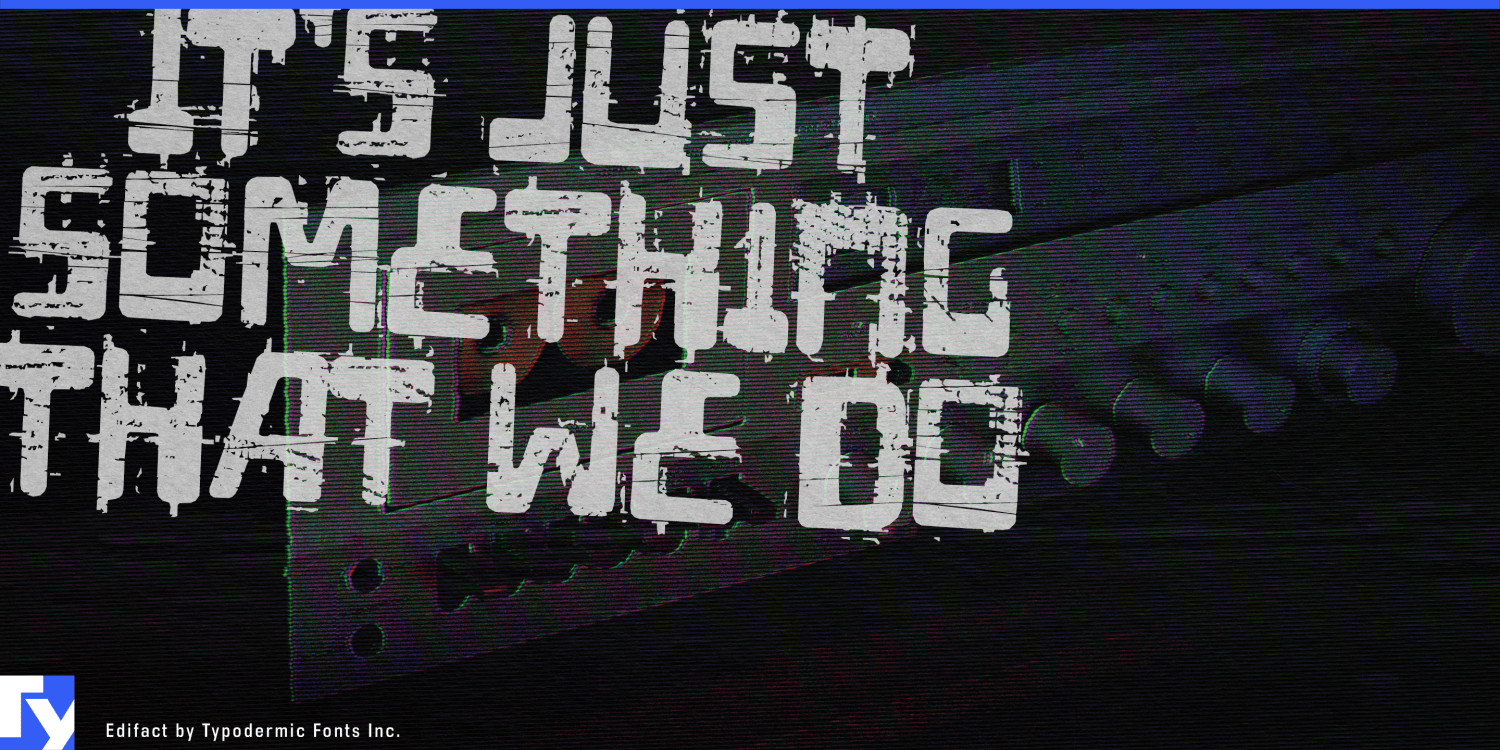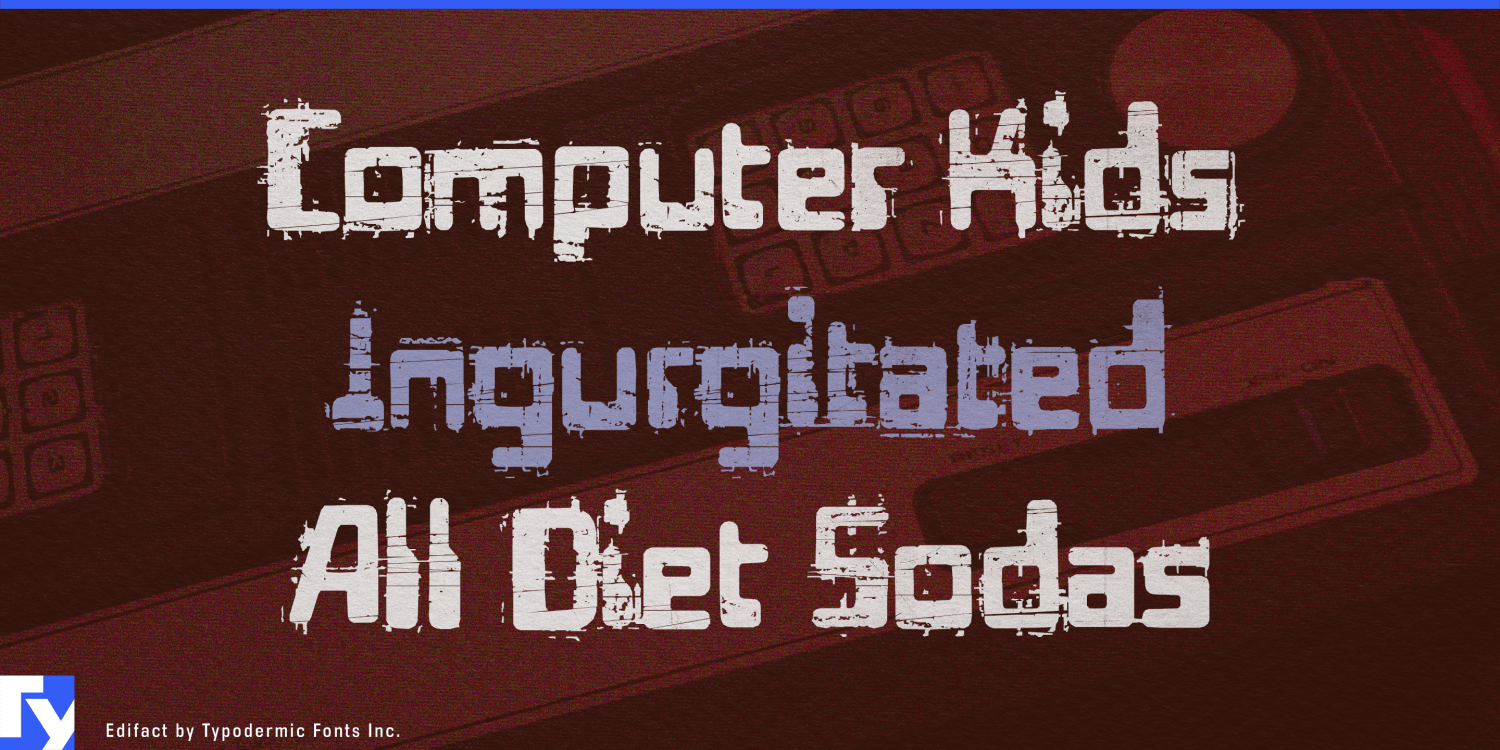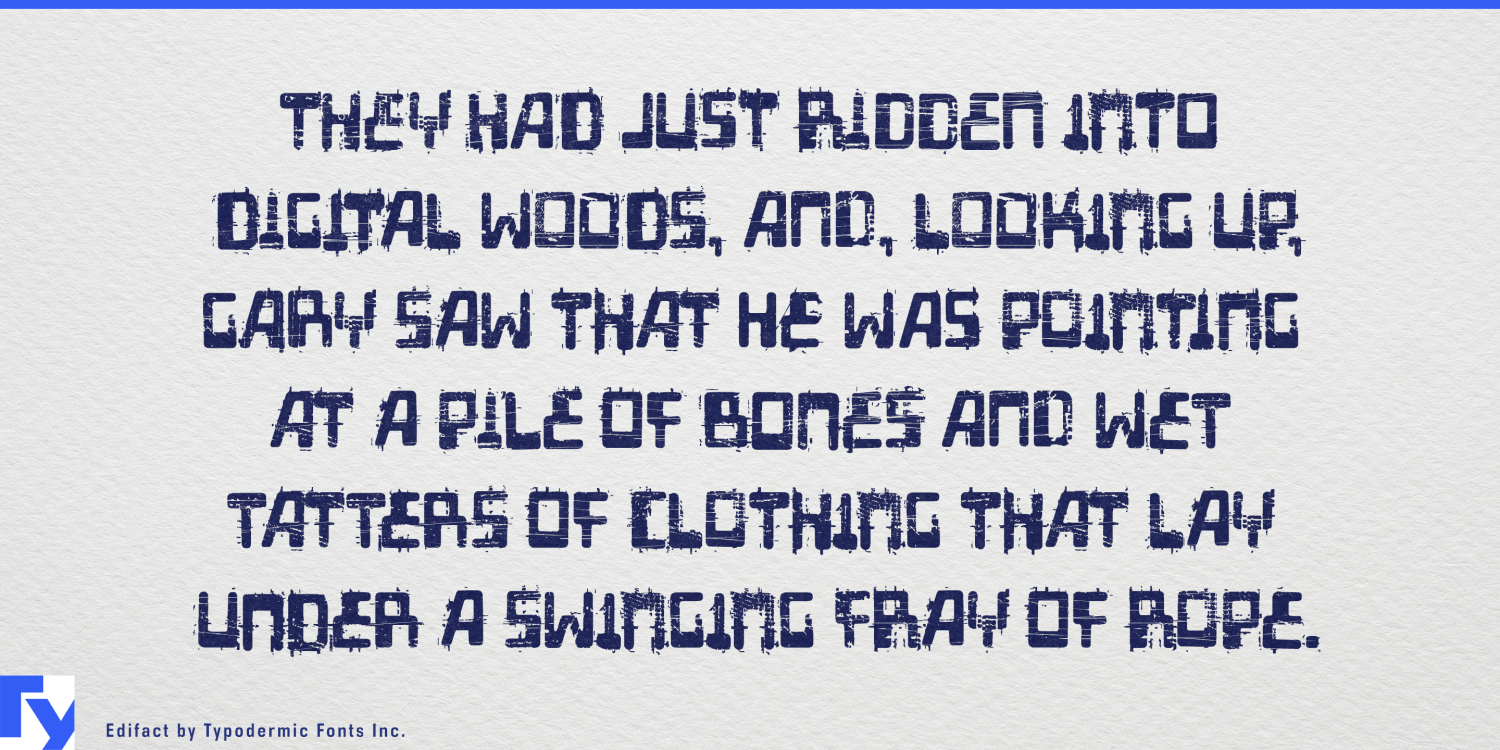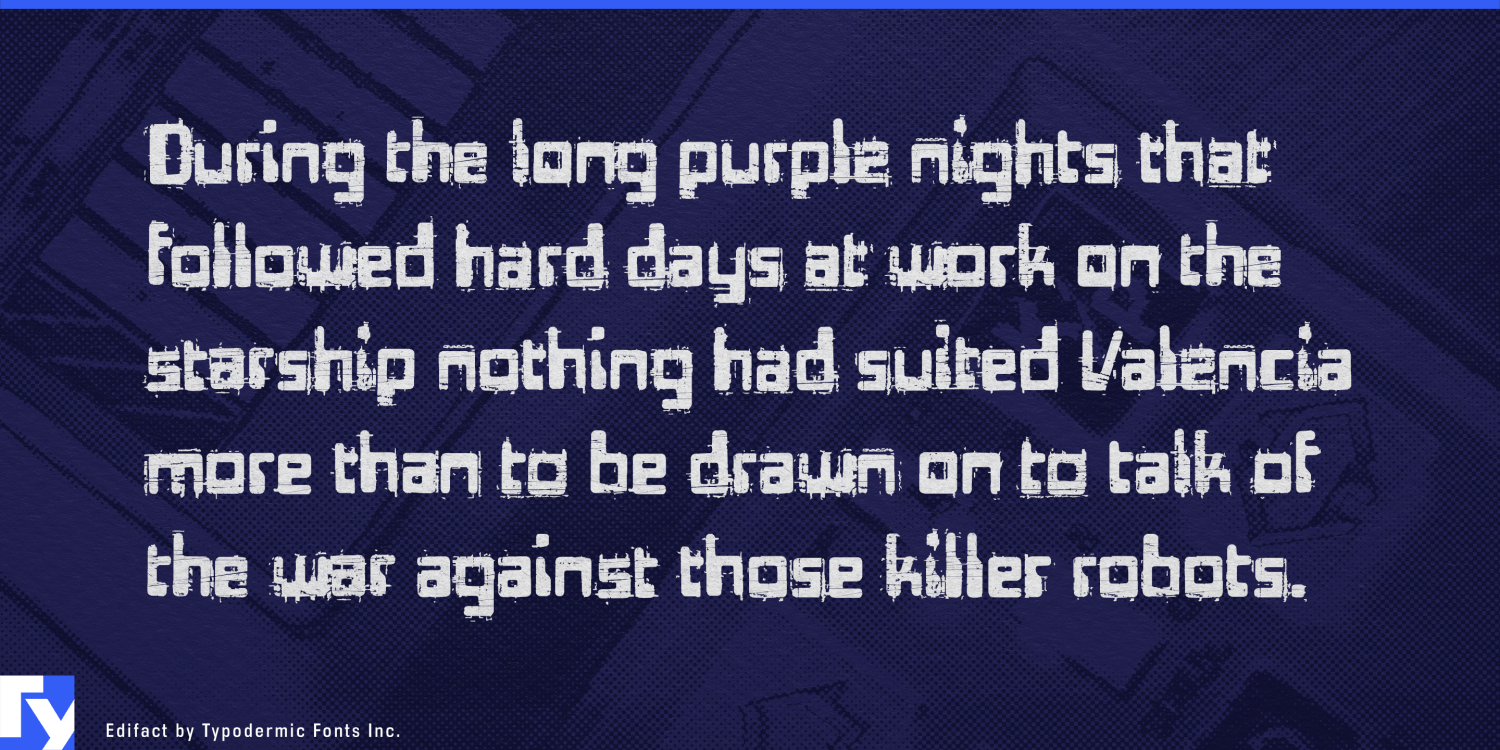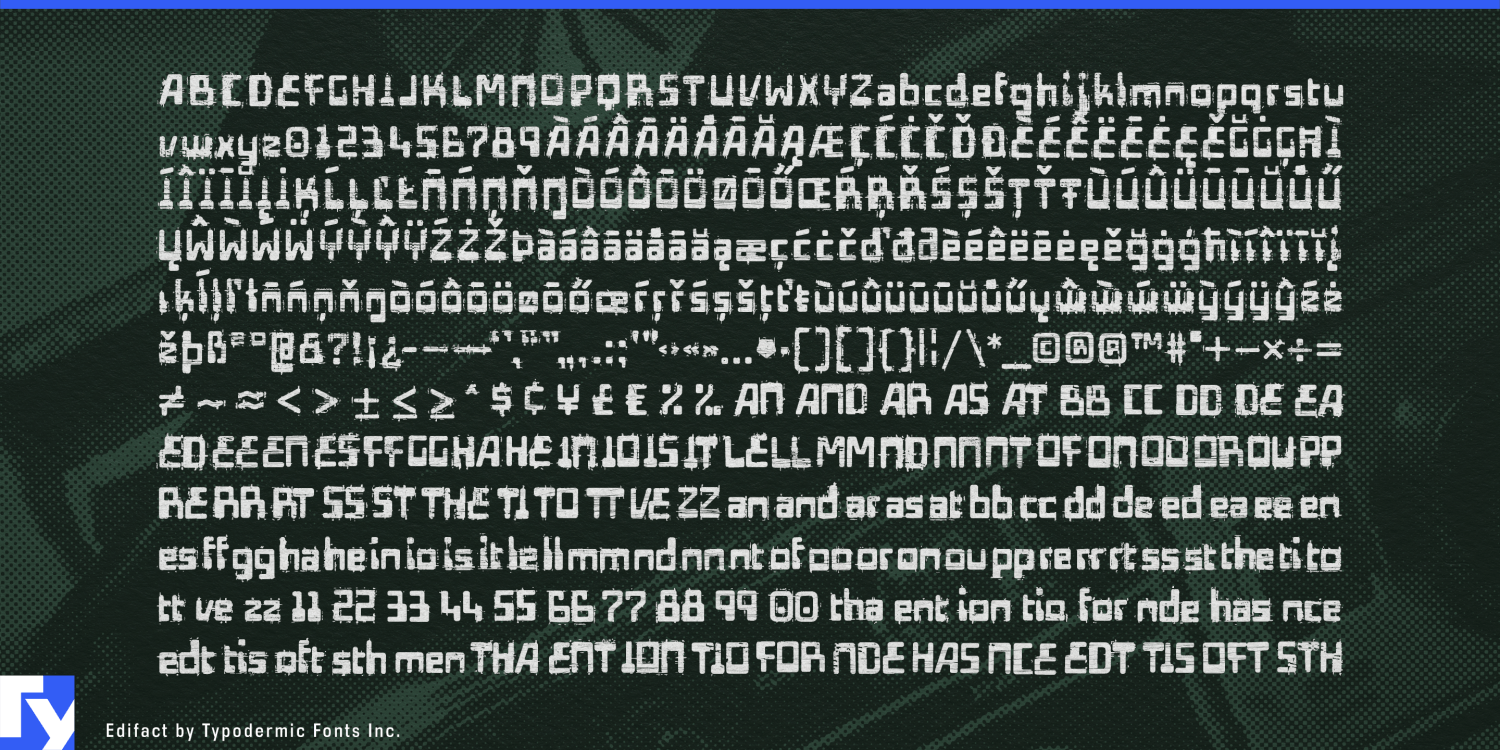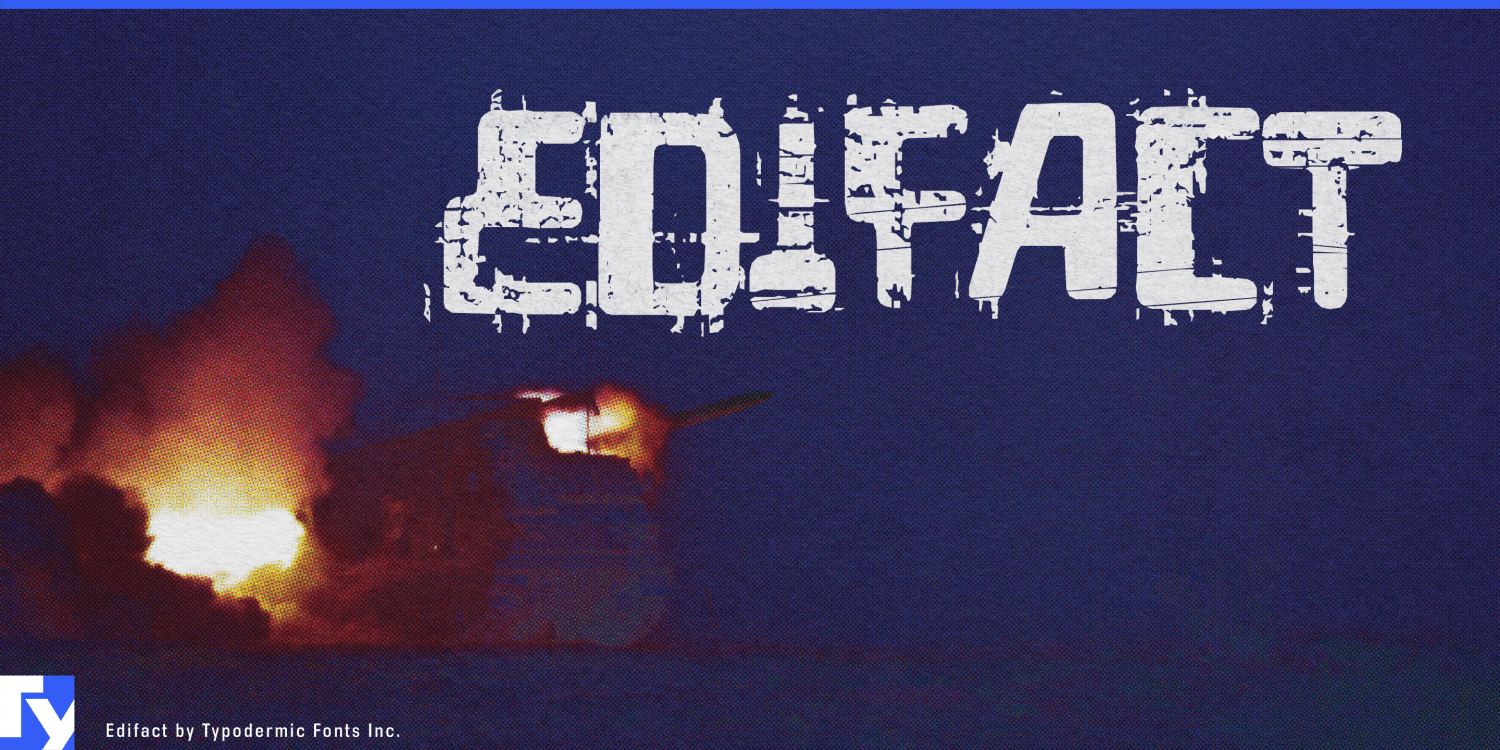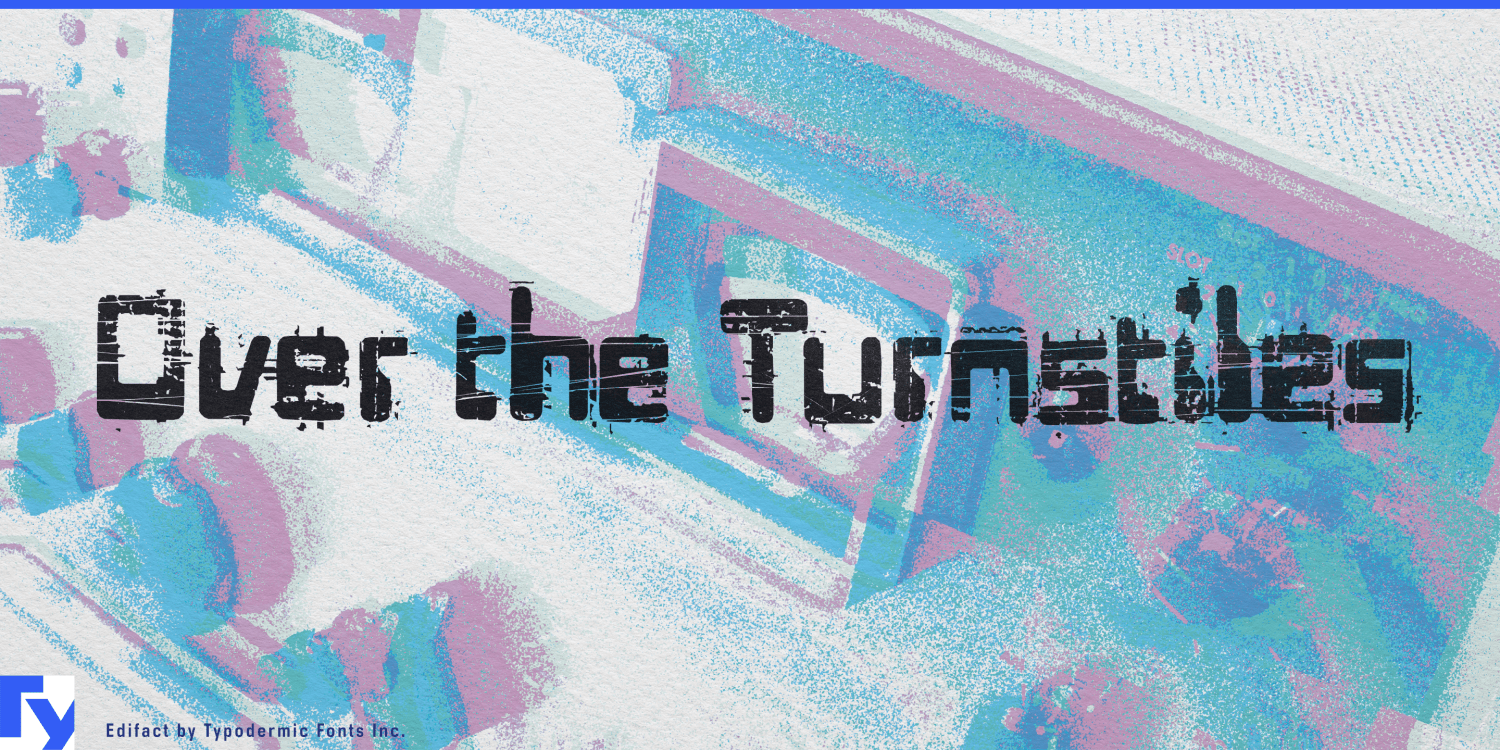
Edifact
About Edifact
Step into the gritty world of Edifact, a display typeface that marries the vintage charm of 1960s magnetic ink lettering with a bold, post-apocalyptic edge. This is a statement piece designed to shatter expectations and captivate audiences. At its core,…